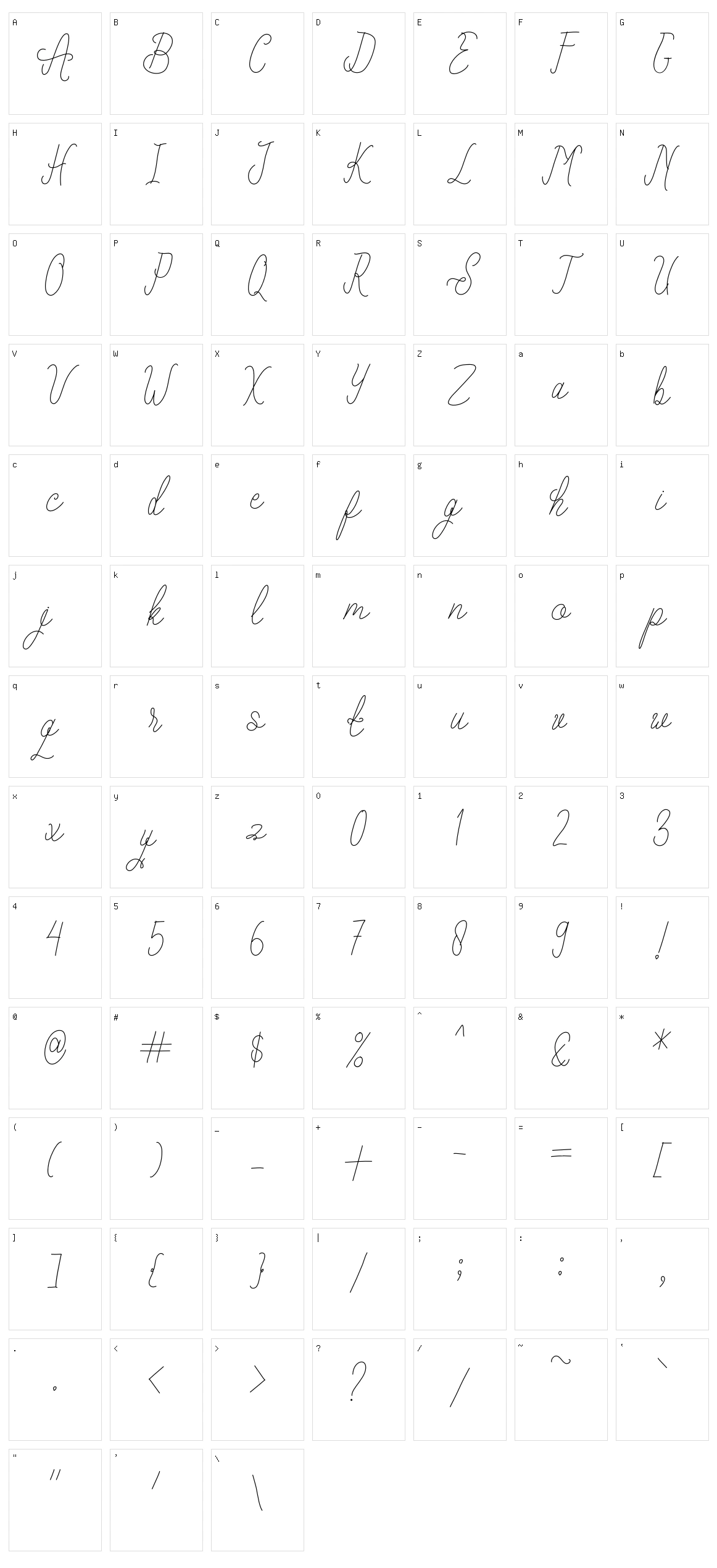
The free font Forthcoming is carefully designed by SSI.Scraps, showcasing a thoughtful balance of creativity and usability and falls under the Script font style. When you download the ZIP file, it contains only 152.98 KB of font files, making it lightweight and quick to download. Please review the license details below to understand permitted usage and distribution rights. If license information is not available, we recommend using this font for personal projects only or contacting the author directly for commercial usage permissions.